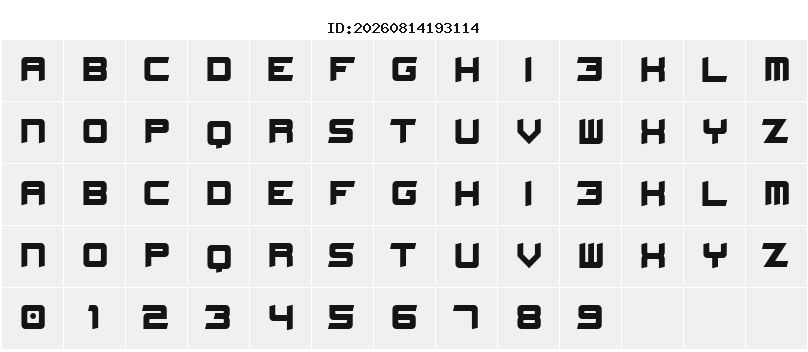
• Font Name: Stellar Kombat
• Font Style: Nominal
• Full Font Name: Stellar Kombat
About Stellar Kombat.ttf
Stellar Kombat.ttf is a modern, elegant sans-serif font designed for ultimate readability and visual harmony. Perfect for branding, headlines, web design, and print materials.